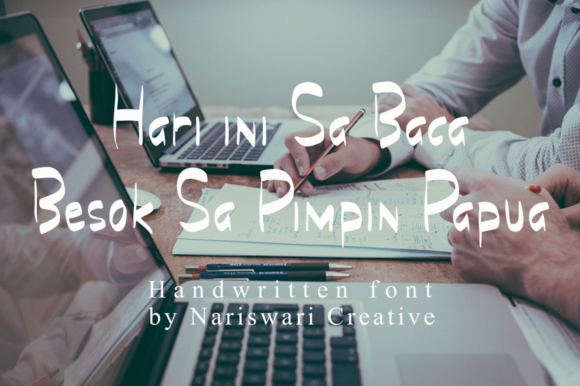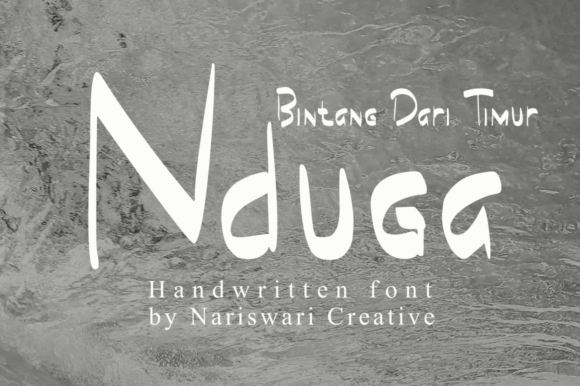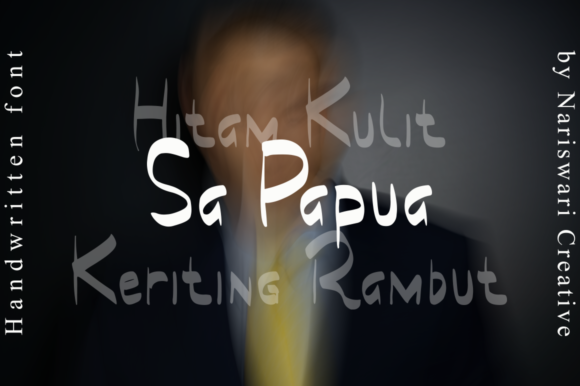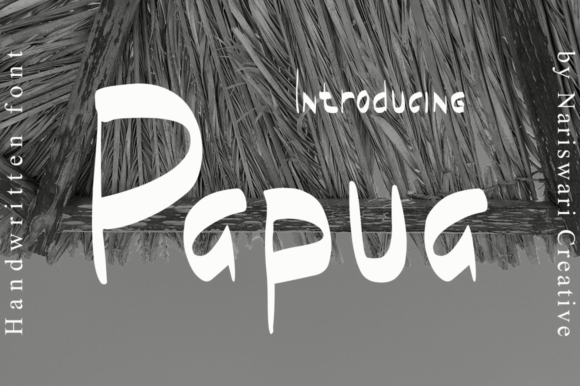
Introduction to Papua Font
Papua is a casual, fun display font, created by using a brush pen.
Clean and a little bit quirky, this font is the perfect fit for all of your logos, branding, social media, and crafty DIY projects .
Key Features of Papua Font